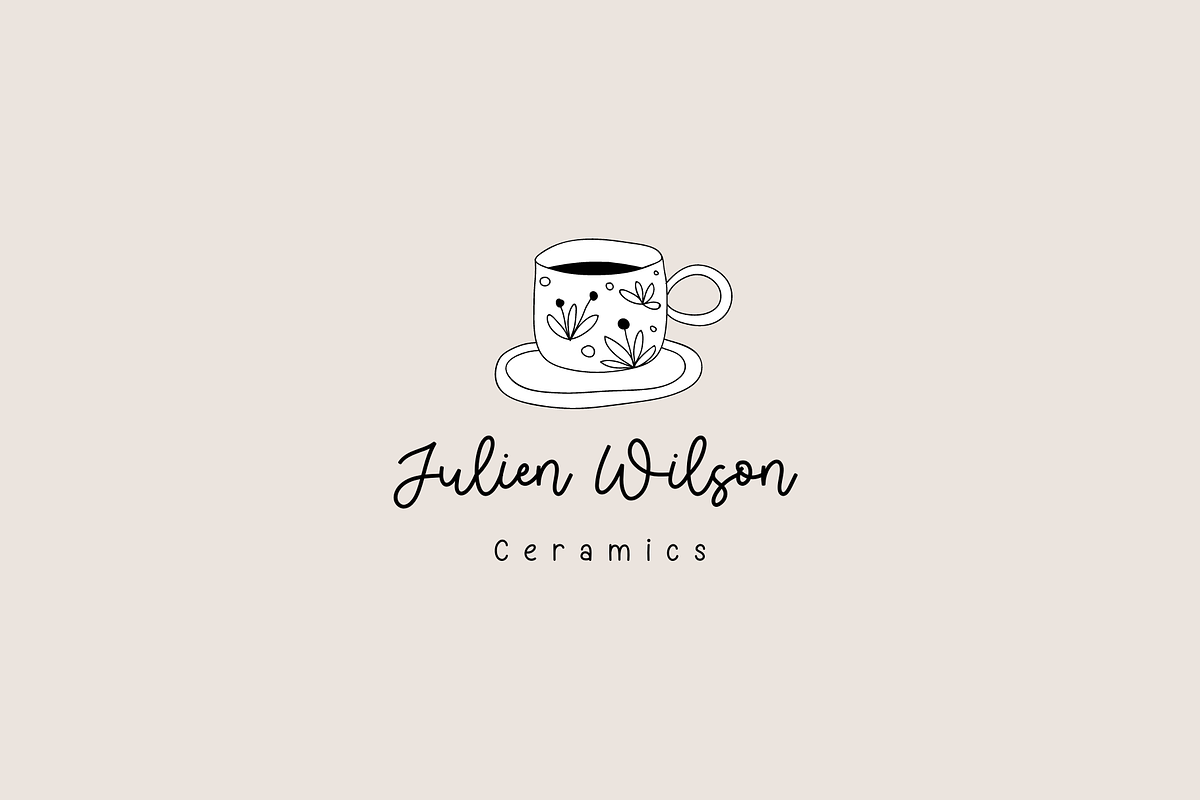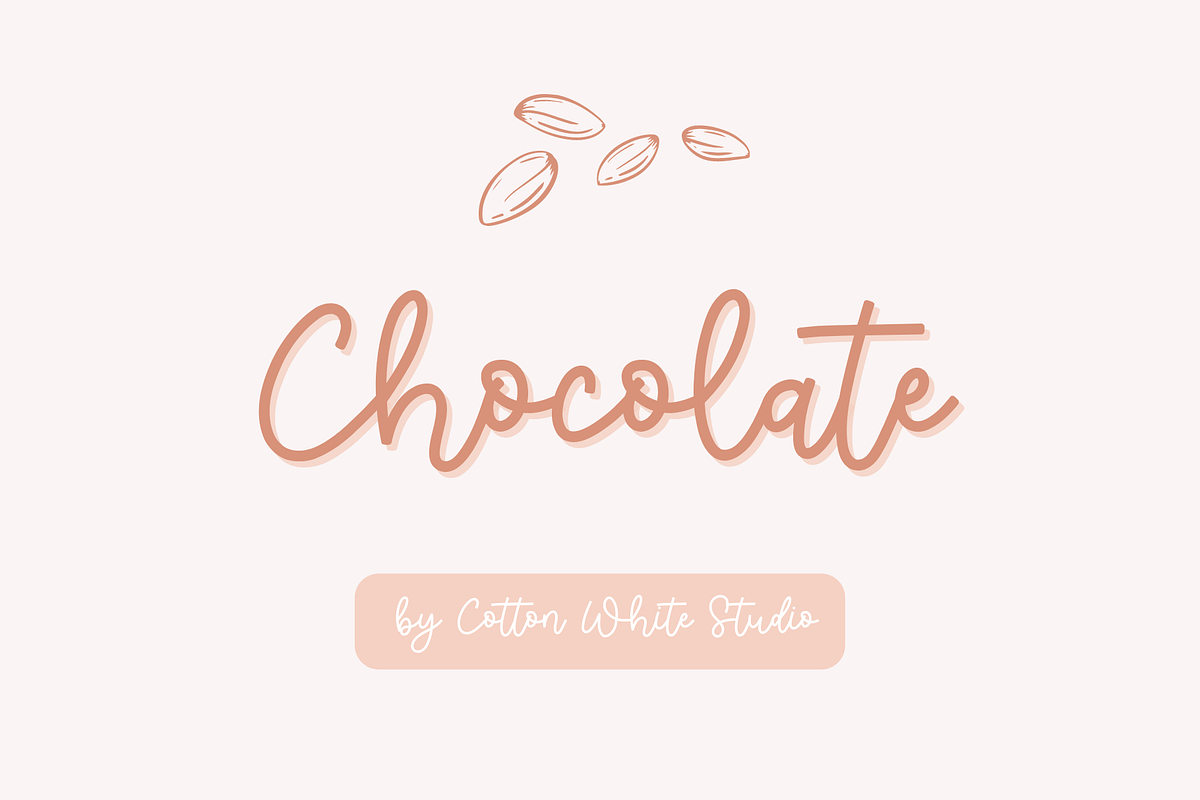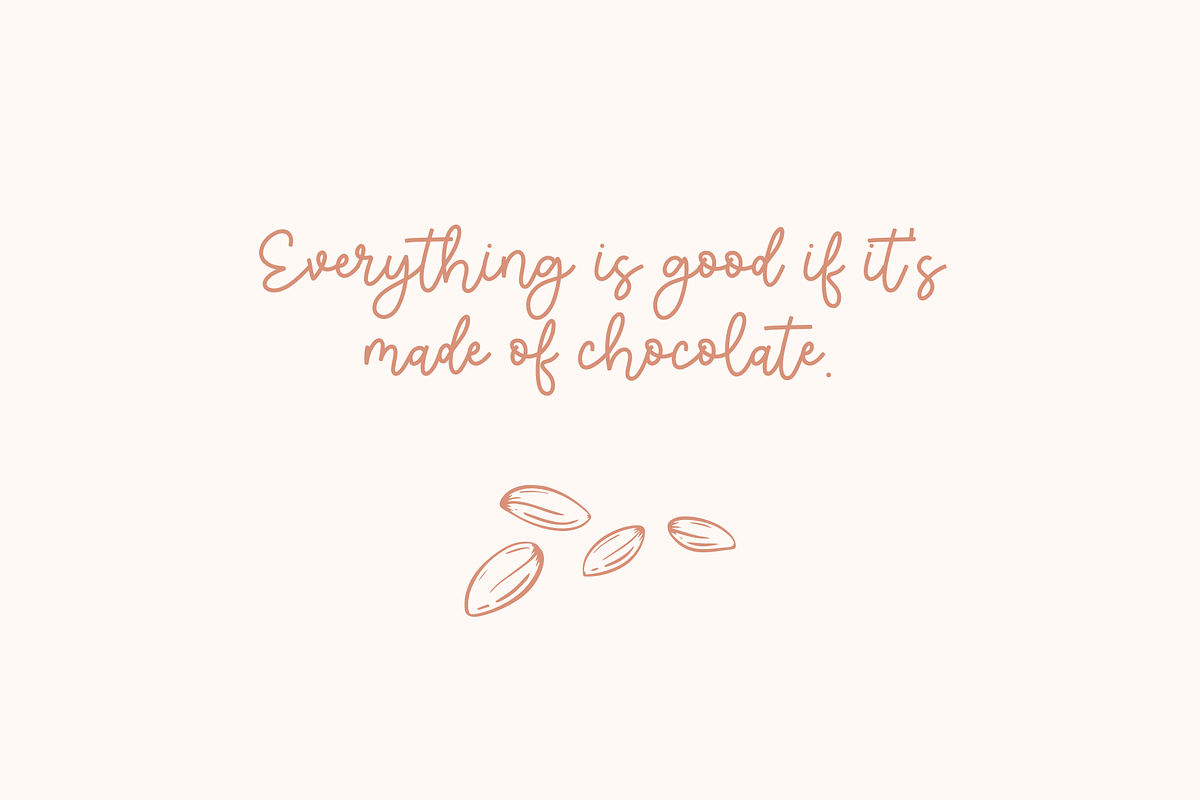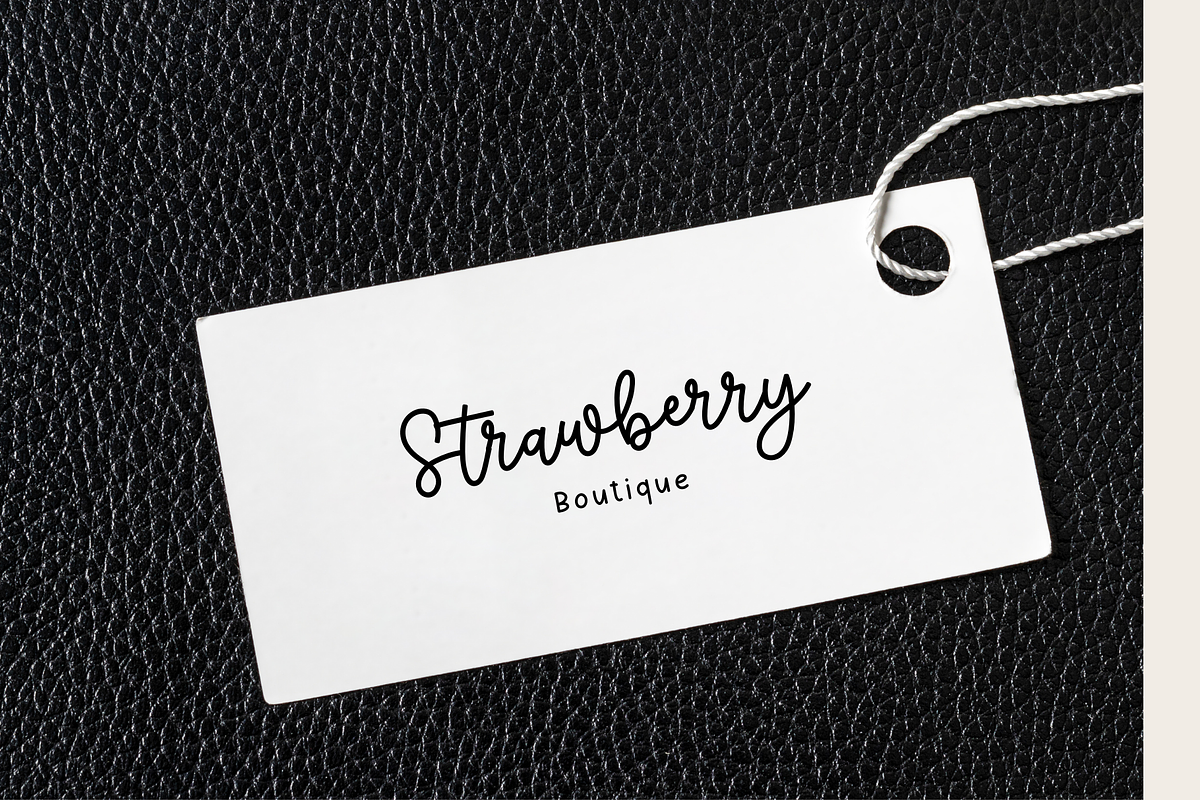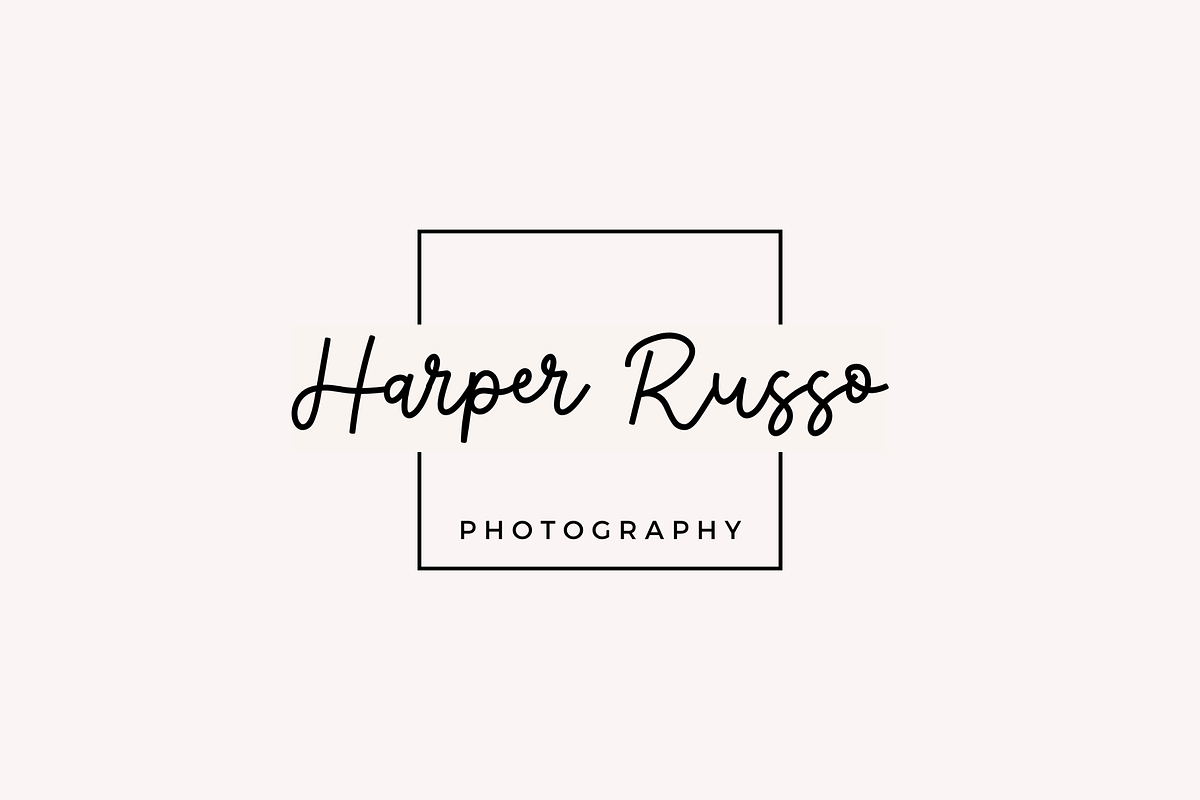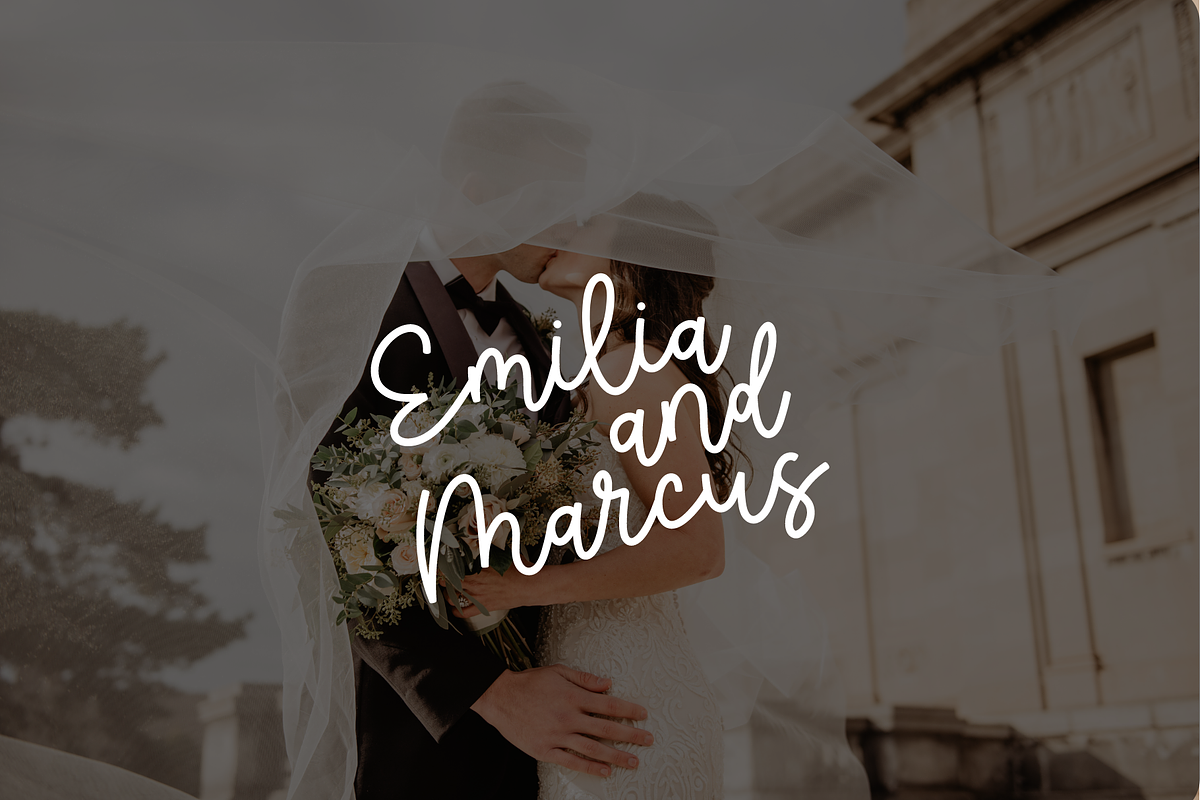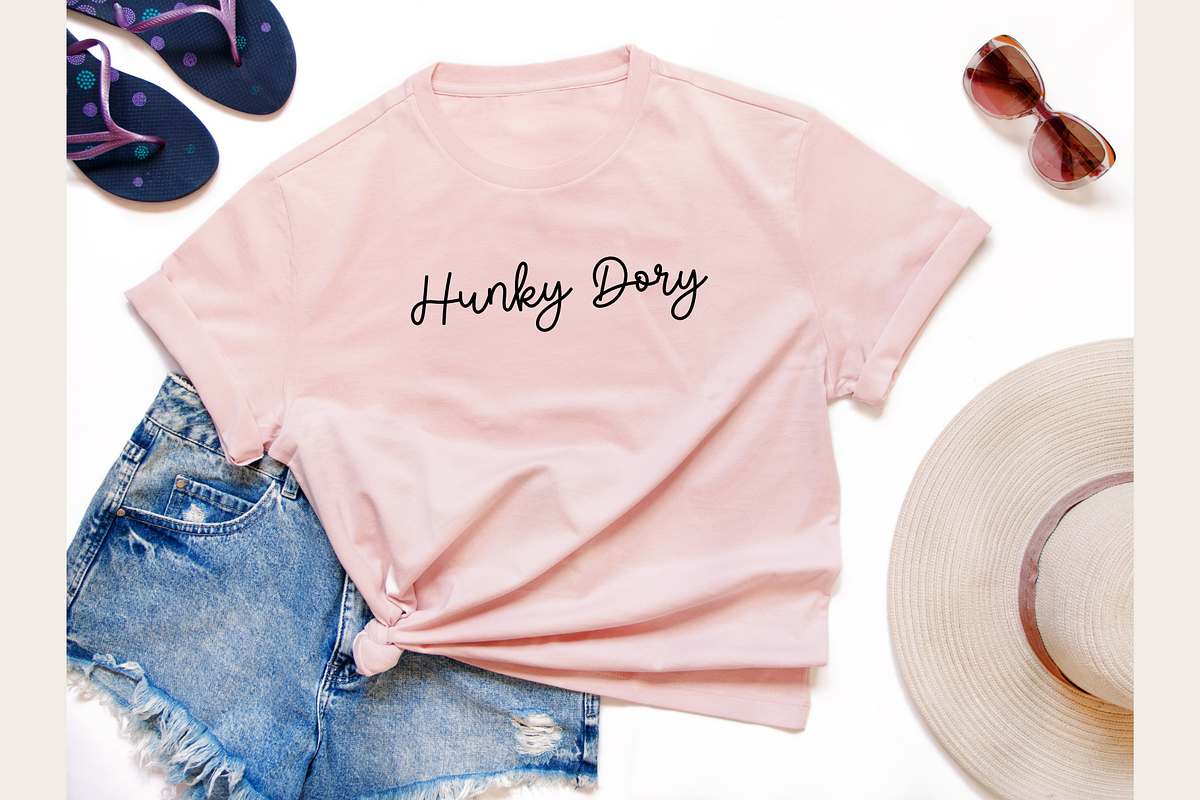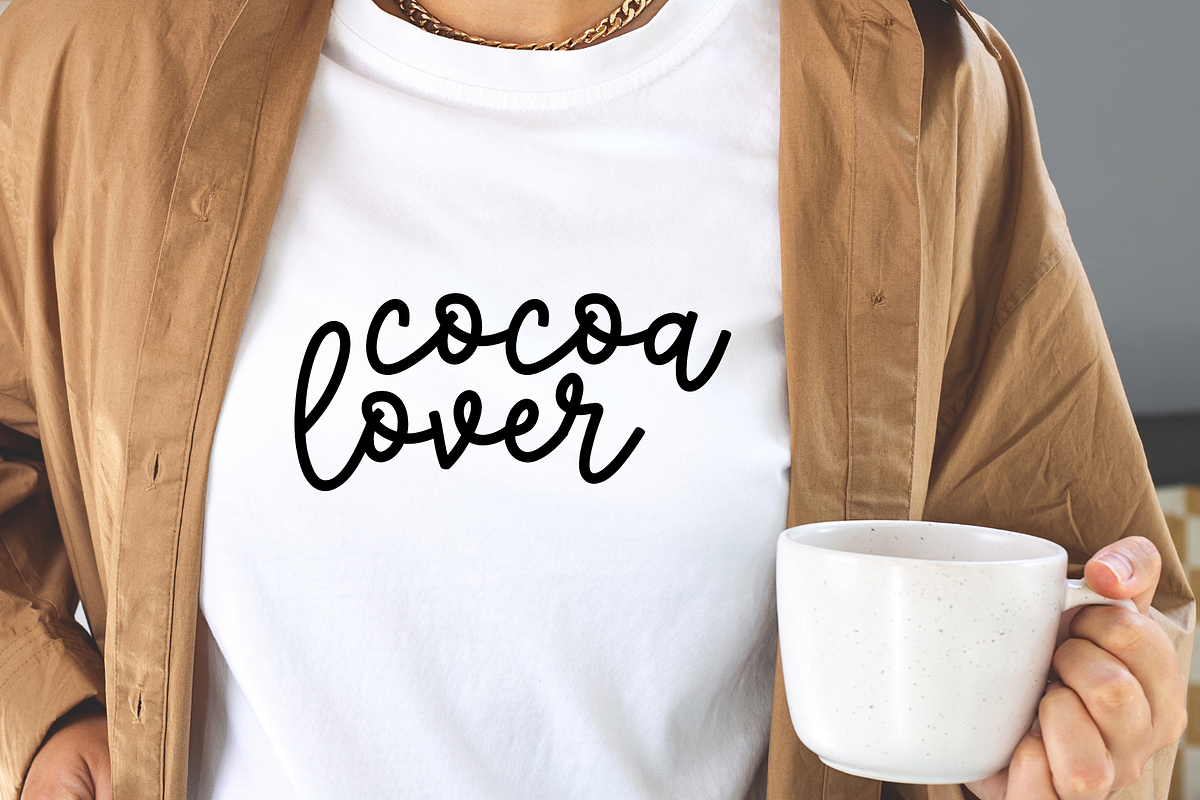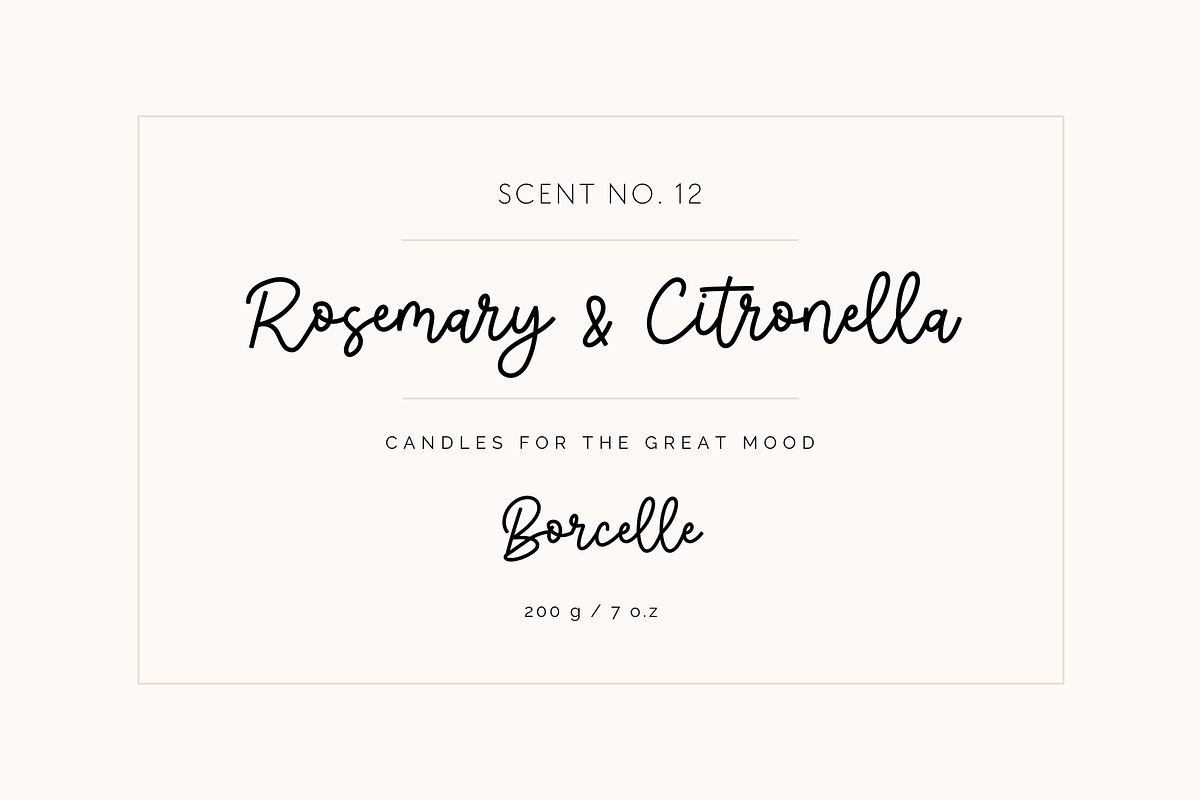
Chocolate
You can use this font to jazz up your digital planner, journal, invitations, note-taking, or anything that requires a handwriting look. Or use it with your projects on in Cricut, Adobe Illustrator, Photoshop, Canva Pro, Silhouette, Procreate, Affinity, Notability, GoodNotes, and more!